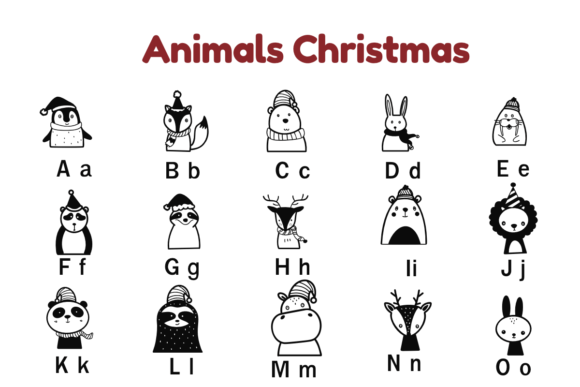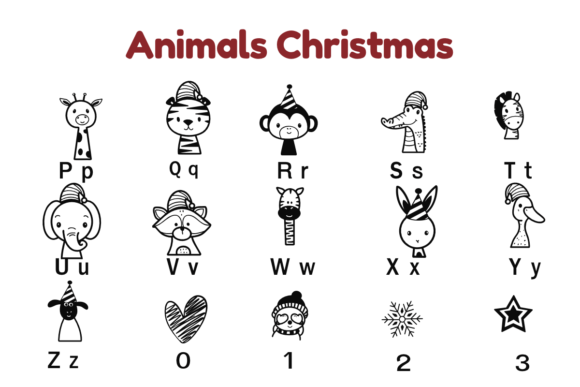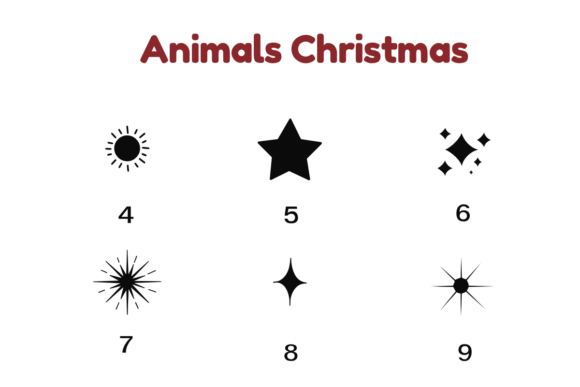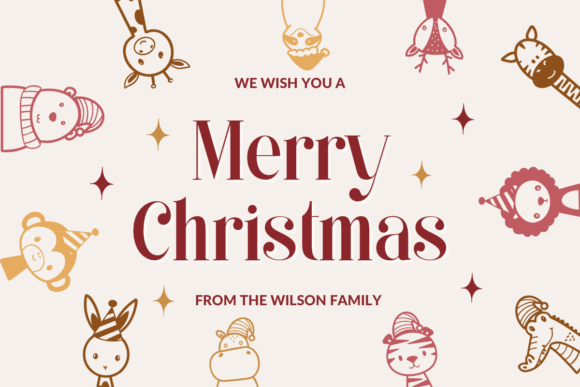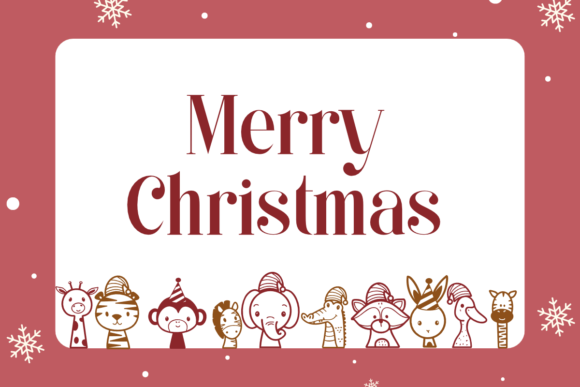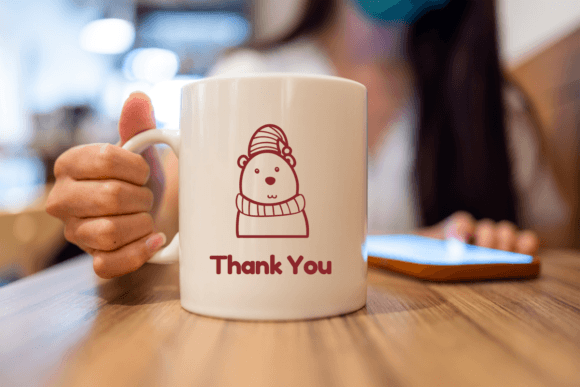
Get Ready to Deck the Halls with a Whimsical Touch
It’s that time of the year when creativity knows no bounds, and the holiday season is just around the corner. You’re probably brainstorming ideas for your upcoming Christmas projects – from handmade decorations to festive wedding invitations. As you rummage through your design arsenal, have you ever wished for a font that captures the essence of the season?
Enter the delightful Animals Christmas Font, a fun dingbats font that brings a touch of whimsy to your creative endeavors. This charming font is designed to enhance your holiday projects, making them truly special and memorable. Whether you’re a seasoned designer or a DIY enthusiast, the Animals Christmas Font is a valuable addition to your toolkit, offering endless possibilities for crafting unique and eye-catching designs.
Animals Christmas Font Key Features
- Unique Characteristics: The Animals Christmas Font features a unique set of animal-themed Christmas characters, including reindeer, snowmen, and Christmas trees.
- Characters: The font includes a wide range of characters, including uppercase and lowercase letters, numbers, and punctuation marks, as well as the animal-themed Christmas characters.
Designer Review: Animals Christmas Font
Overall, the Animals Christmas Font is a fun and playful take on traditional holiday typography. I appreciate the unique combination of festive animals and traditional Christmas elements. Here are some things that stand out to me: ✨
- Playful and whimsical design that’s sure to put a smile on people’s faces.
- The font’s attention to detail, from the festive holly leaves to the jolly animals, is impressive.
- The font’s versatility makes it suitable for a range of applications, from invitations to social media graphics.
However, I do have some concerns: ⚠️
- The font’s bold and playful style may not be suitable for all audiences, particularly those looking for a more traditional or formal holiday aesthetic.
- The font’s intricate details may be lost on smaller text sizes, making it difficult to read.
Overall, I think the Animals Christmas Font is a great choice for anyone looking to add some fun and personality to their holiday designs. While it may not be suitable for all applications, its unique style and attention to detail make it a standout in the world of holiday typography.
Animals Christmas Font: A Practical Application Guide
Tips for Getting the Most Out of the Animals Christmas Font
Use the font to create festive and fun designs for holiday cards, invitations, and decorations.
Combine the font with other design elements, such as images and graphics, to create a cohesive and visually appealing design.
Experiment with different font sizes, colors, and styles to add depth and interest to your design.
Holiday cards and invitations
Party decorations and signage
Gift tags and wrapping paper
Seasonal social media posts and graphics
Yes, you can customize the Animals Christmas Font using design software such as Adobe Illustrator or Photoshop. The font’s OpenType features allow for advanced customization options, including ligatures, swashes, and stylistic sets. You can also use font editing software like FontForge to modify the font’s glyph set or add custom characters.